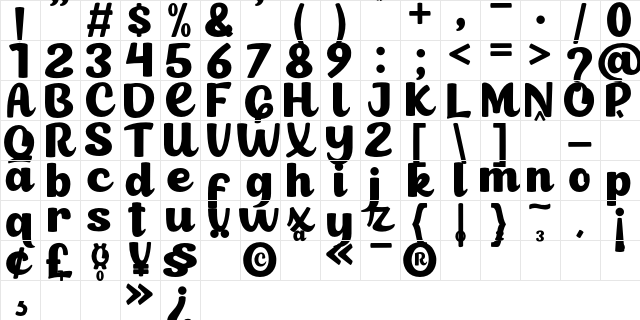
Complete Cheerful Dynamite Personal Use Regular glyph index. Displaying only characters natively supported by Cheerful Dynamite Personal Use Regular font.
Cheerful Dynamite Personal Use is a composed and adaptable typeface that performs quietly and consistently across a wide range of design contexts.